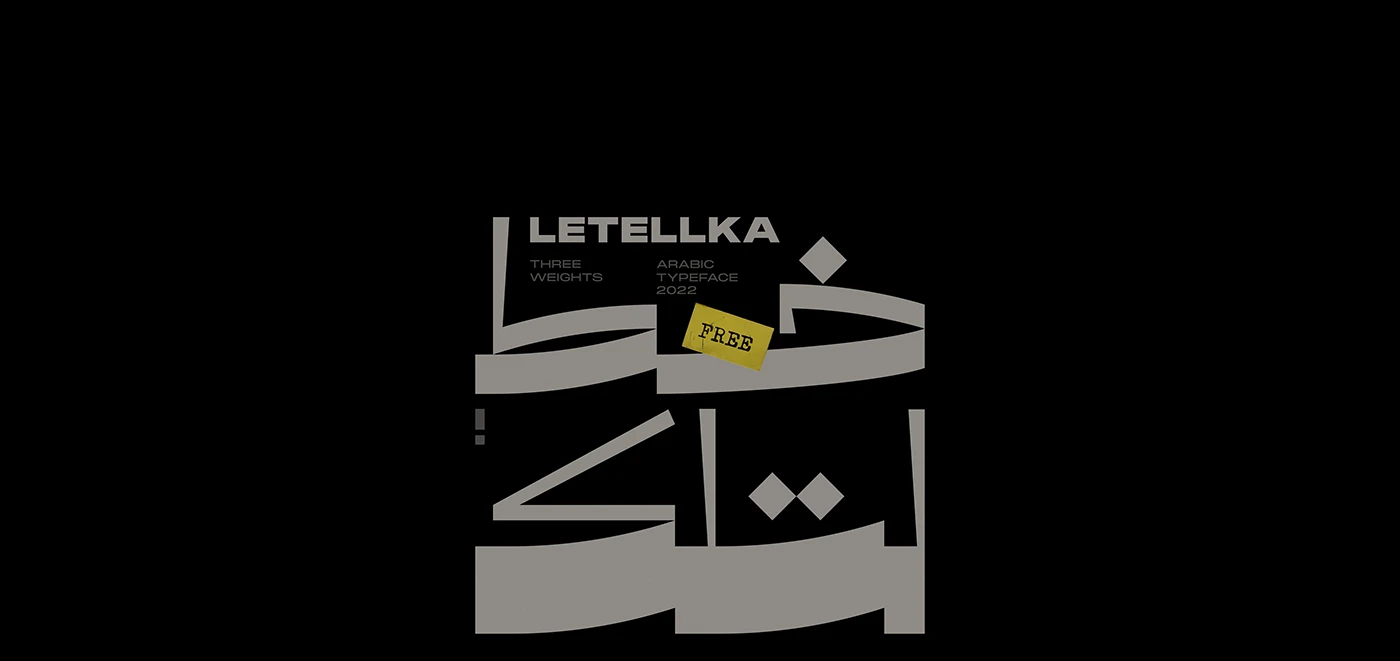
Letellka Arabic Typeface
Download Letelka, an open-source Arabic font family featuring three weights with clean, smooth letterforms—perfect for game design, digital applications, and creative projects requiring versatile, accessible typography (3.07 MB). OTF format with PNG and JPG previews.
Letelka is a thoughtfully crafted Arabic typeface designed with clarity and versatility in mind. As an open-source font, it offers designers and developers free access to professional-quality Arabic typography with three distinct weights, each featuring clean, smooth letterforms optimized for both digital and print applications.
Design Characteristics:
- Clean, smooth Arabic letterforms
- Excellent readability at various sizes
- Versatile design suitable for multiple applications
- Professional quality with open-source accessibility
- Three distinct levels/weights for design flexibility
Font Family – 3 Weights:
- Weight 1: Delicate, refined for subtle applications
- Weight 2: Balanced, versatile for general use
- Weight 3: Bold, impactful for emphasis and headlines
- Three distinct options for complete design control
Arabic Script:
- Complete Arabic character set across all weights
- Full support for diacritics and marks
- Proper character connections and positioning
- Consistent quality throughout the family
- Optimized for game and digital applications
- Game Design: UI text, dialogue, titles, and interfaces
- Digital Applications: Mobile apps, websites, software
- Print Materials: Brochures, flyers, publications
- Branding: Accessible identity systems
- Social Media: Engaging content
- Educational Materials: Clear, readable resources
- Indie Projects: Professional typography on any budget
- Open Source Initiatives: Community-driven projects
- Three Weights: Design flexibility for any need
- Clean Design: Smooth, readable letterforms
- Game-Ready: Optimized for game interfaces
- Professional Quality: High-caliber font accessible to all
Key Features of Letelka Font Family:
- 3 clean, smooth weights for versatile design
- Complete Arabic character sets across all weights
- Optimized for game design and digital applications